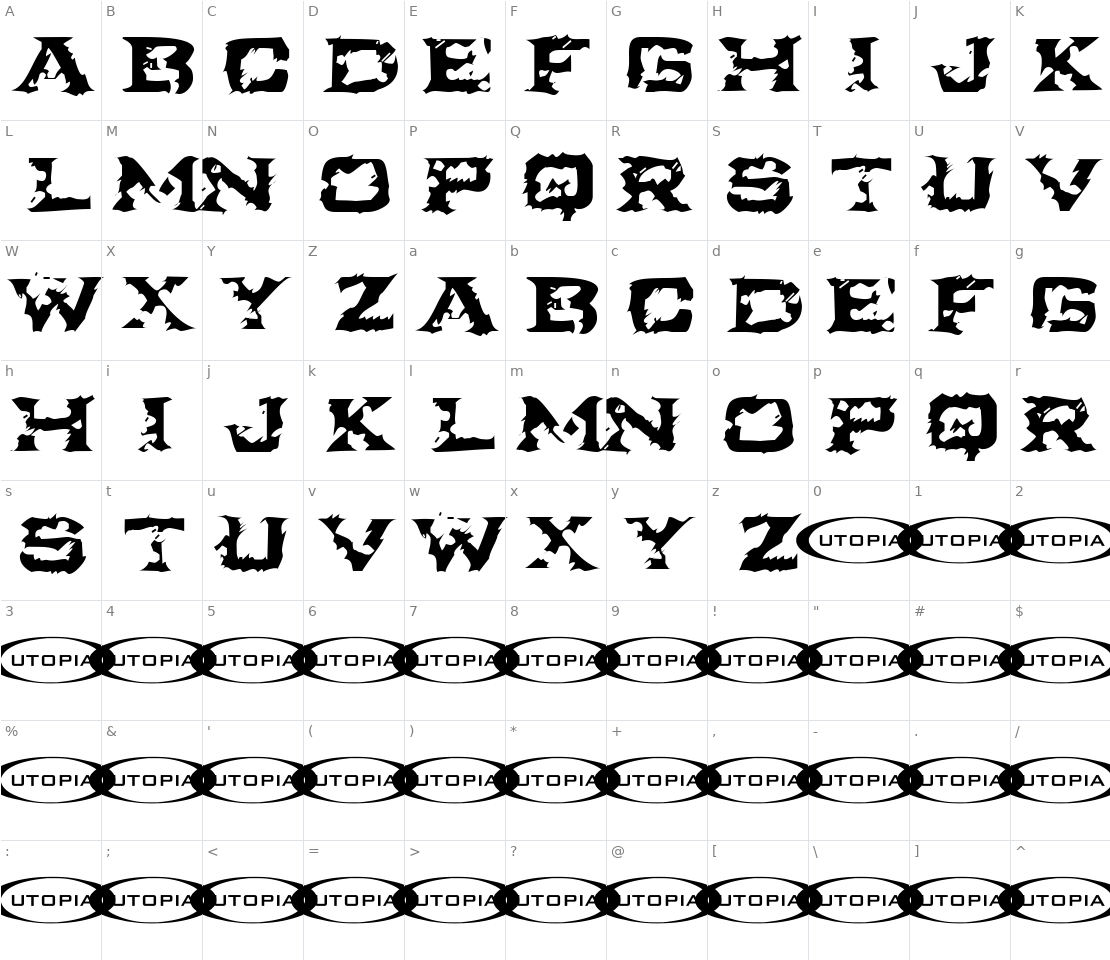
Turbulence
Turbulence is a heavy, battered display face from Utopia Fonts with letterforms that look like they've been sandblasted down to raw concrete. The bold strokes carry serious weight, but the eroded, crumbling edges strip away any sense of polish, leaving something that feels raw and aggressive. Built for headlines, gig posters, and dark-themed branding where you want type that looks like it barely survived.